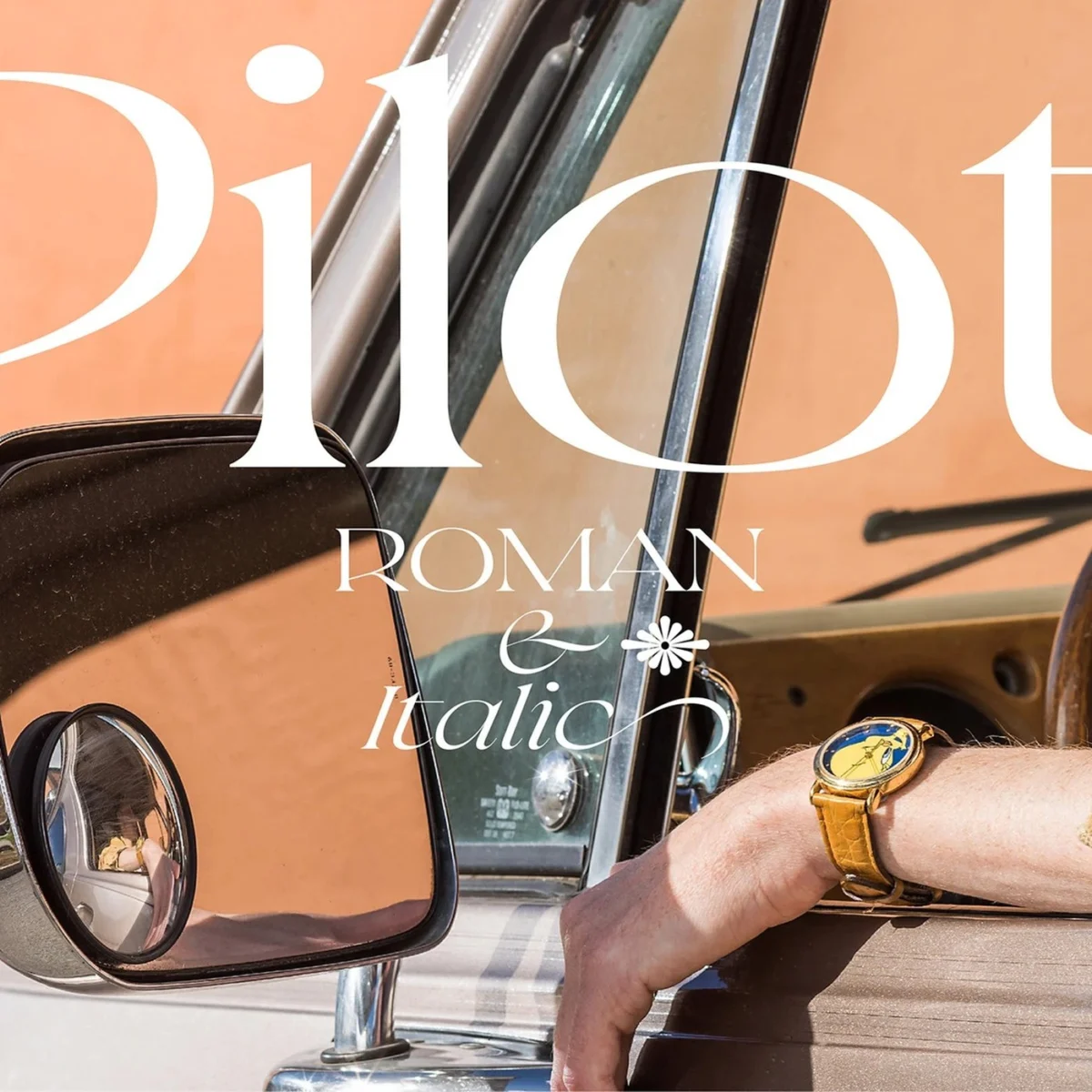
Violaine & Jeremy Unveil Pilot Typeface: A Synthesis of Aeronautical Precision and Avant-Garde Editorial Display
Parisian design studio Violaine & Jeremy, through their independent type foundry Vj-Type, announced on September 16, 2026, the official release of Pilot Typeface, a new expressive display serif family. This ambitious typographic creation, developed in close collaboration with designers Antoine Brun, Liana Korios, and Julie Senné, aims to redefine editorial display lettering by blending sharp angular tension with a meticulous aeronautical precision, occupying a unique space between high fashion aesthetics and rigorous typographic mechanics. The typeface is presented as a sophisticated tool for creative directors seeking substantial visual authority and a distinctive contemporary editorial silhouette.
Developmental Chronology and Conceptual Genesis
Typography: Pilot Typeface by Violaine & Jeremy
The genesis of Pilot Typeface can be traced back to early 2024, when Violaine & Jeremy, known for their distinctive editorial and brand design work, began exploring new directions for display typography. Their objective was to craft a serif typeface that transcended conventional boundaries, drawing inspiration from disparate yet complementary fields. The initial conceptual phase focused on deconstructing the visual language of twentieth-century flight instruments and technical navigational charts. This period involved extensive research into the aesthetics of precision engineering, the clarity required for cockpit displays, and the robust, yet elegant, letterforms found in historical aeronautical schematics.
By mid-2024, the core design principles began to solidify: a fusion of mechanical exactitude with the expressive dynamism of calligraphic strokes. The collaboration with Antoine Brun, Liana Korios, and Julie Senné commenced shortly thereafter, bringing diverse expertise to the project. Brun, with a background in technical drawing and geometric forms, was instrumental in defining the typeface’s sharp angles and structural integrity. Korios contributed significantly to the historical research, ensuring the aeronautical inspirations were authentically integrated without becoming derivative. Senné, specializing in digital typeface development, oversaw the complex process of refining glyph contours, optimizing optical weight, and preparing the family for broad application across various media.
The latter half of 2025 and early 2026 saw intensive refinement, testing, and the development of extensive alternate glyphs and ligatures. This iterative process was crucial for ensuring that Pilot Typeface not only possessed its intended aesthetic tension but also maintained exceptional functionality and readability across diverse applications. The final stage involved comprehensive kerning, hinting, and the meticulous calibration of optical balance, preparing the typeface for its public debut.
Typography: Pilot Typeface by Violaine & Jeremy
Architectural Precision: Deconstructing Pilot’s Design
At the heart of Pilot Typeface’s distinctive character lies an aggressive contrast between its constituent elements. The razor-sharp, bracketed serifs, a hallmark of its design, provide a striking visual anchor, immediately conveying a sense of precision and authority. These serifs are meticulously balanced against broad, sculptural vertical stems, creating a dynamic interplay of weight and delicacy. This tension is further amplified by diagonal strokes that terminate in unyielding geometric wedges, an intentional design choice echoing the aerodynamic surfaces and robust construction of vintage aircraft wings. The interplay of these sharp terminals and robust body strokes gives Pilot its unique "angular calligraphic tension."
The lowercase letterforms have been crafted with compact counters and exaggerated apertures, features that inject a rhythmic cadence into headline settings and editorial pull quotes. This deliberate design choice enhances visual interest and ensures that even at larger sizes, the text retains a captivating flow. The generous provision of alternate glyphs and custom ligatures empowers creative directors with expansive compositional flexibility. These features allow characters to interlock in novel ways, generating striking typographic textures that can transform a simple layout into a piece of art on the printed page. Whether deployed across high-fashion mastheads, cultural exhibition identities, or luxury publication covers, Pilot’s letterforms establish an unmistakable presence without compromising legibility. This delicate balance of theatrical display proportions with disciplined baseline metrics is a testament to the rigorous typographic mechanics underpinning the typeface.
Typography: Pilot Typeface by Violaine & Jeremy
Beyond the visible aesthetics, the technical craftsmanship of Pilot is evident in its meticulous optical weight calibration. This ensures that each glyph maintains consistent visual density and balance, preventing any character from appearing too heavy or too light relative to its neighbors. The distinctive character anatomy, from the subtle curve of an ascender to the precise angle of a descender, contributes to an overall coherence that is rare in such expressive display typefaces. The designers paid particular attention to the x-height, ensuring it provides ample space for readability while maintaining the typeface’s inherent drama.
Aeronautical Inspirations and Broader Context
The inspiration drawn from twentieth-century flight instruments and navigational charts is not merely superficial; it is deeply embedded in Pilot’s functional and aesthetic core. Historically, typefaces used in aviation were designed for maximum clarity and immediate legibility under challenging conditions, often needing to be read quickly in low light or high-stress environments. These typefaces typically featured robust constructions, clear differentiation between similar characters (e.g., ‘I’ and ‘l’, ‘0’ and ‘O’), and a sense of mechanical exactitude. Pilot Typeface subtly reinterprets these functional imperatives through a contemporary lens. The sharp, clean lines and strong contrasts can be seen as an homage to the dials, gauges, and labels that once guided early aviators, imbuing the typeface with a sense of reliable precision.
Typography: Pilot Typeface by Violaine & Jeremy
This release occurs within a vibrant landscape of independent type foundries and a renewed appreciation for bespoke typography. In recent years, there has been a significant surge in demand for unique, high-quality display typefaces that can differentiate brands and publications in an increasingly visually saturated market. Independent foundries like Vj-Type have been at the forefront of this movement, often pushing experimental boundaries and offering designers alternatives to more ubiquitous corporate fonts. Pilot Typeface’s blend of historical inspiration with avant-garde execution positions it as a significant contribution to this evolving typographic discourse. Its arrival signals a continued trend towards typefaces that are not merely functional but serve as powerful aesthetic statements, embodying narrative and conceptual depth.